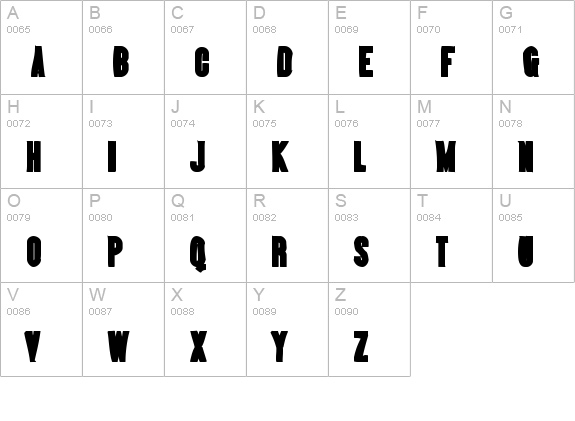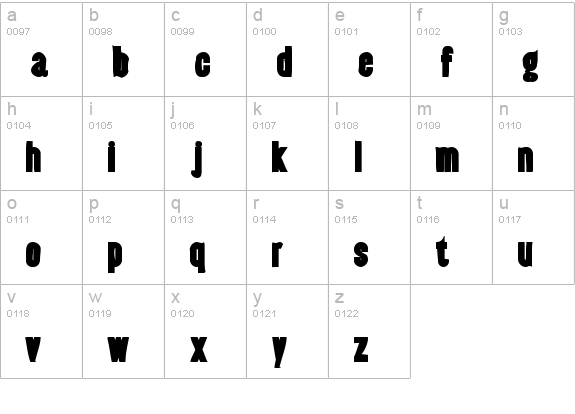
Almonte Ink Font Details
Almonte Ink font is a unique and artistic typeface that exudes a sense of creativity and individuality. Its hand-drawn appearance gives it a charming and organic feel, making it perfect for projects that require a personal touch. The irregular lines and uneven edges of the characters add to its character and make it stand out from other fonts. The best part about Almonte Ink font is that it is available for free download at FontsMarket.com. This means you can easily add this eye-catching font to your collection without having to spend a dime. Whether you're working on a design project, creating custom artwork, or just looking to spice up your documents, Almonte Ink font is a fantastic choice that won't break the bank. With its playful and whimsical style, Almonte Ink font is sure to make a statement and leave a lasting impression on your audience. Download it today and let your creativity flow with this beautiful and expressive typeface.